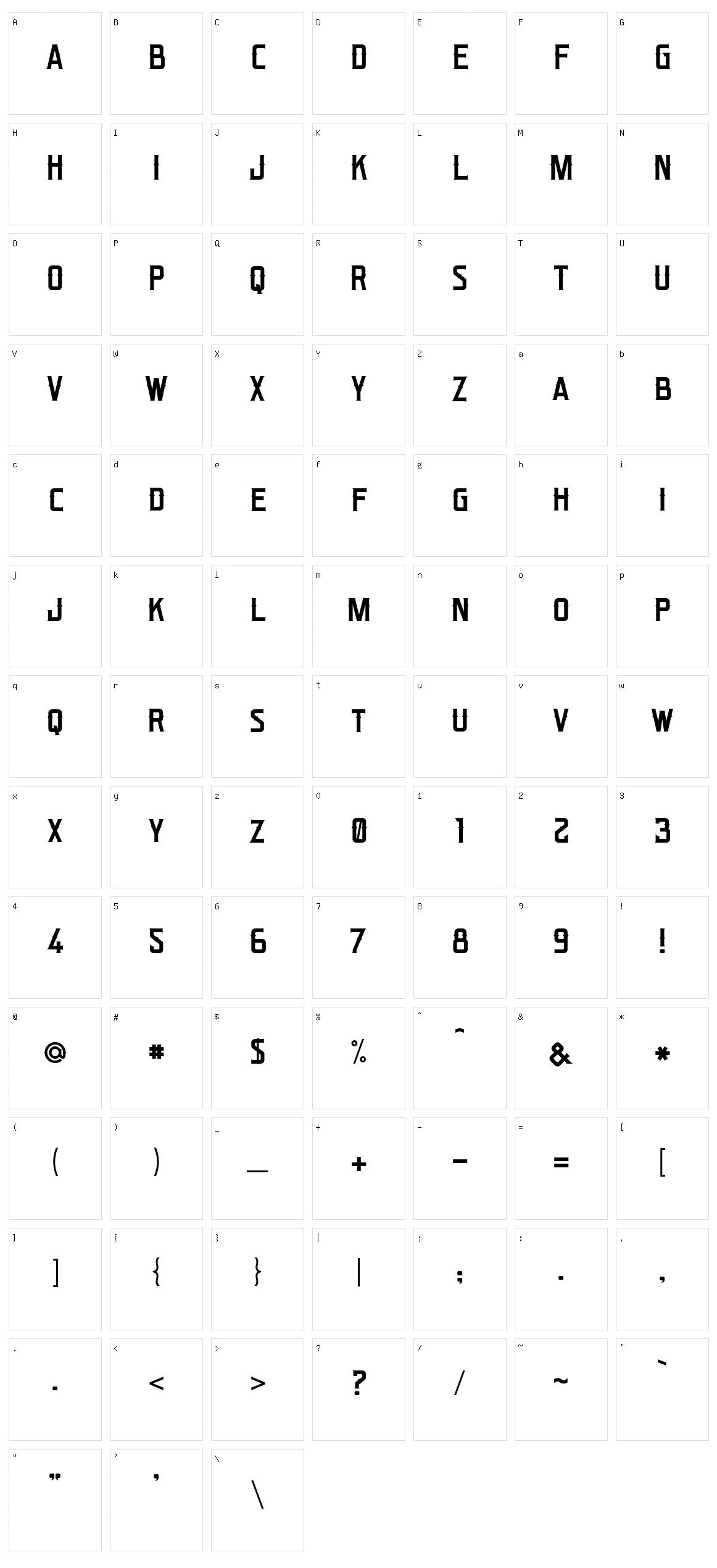
The free font Bonzer - San Francisco is carefully designed by Bonzer, showcasing a thoughtful balance of creativity and usability and falls under the Western font style. When you download the ZIP file, it contains only 28.11 KB of font files, making it lightweight and quick to download. Please review the license details below to understand permitted usage and distribution rights. If license information is not available, we recommend using this font for personal projects only or contacting the author directly for commercial usage permissions.